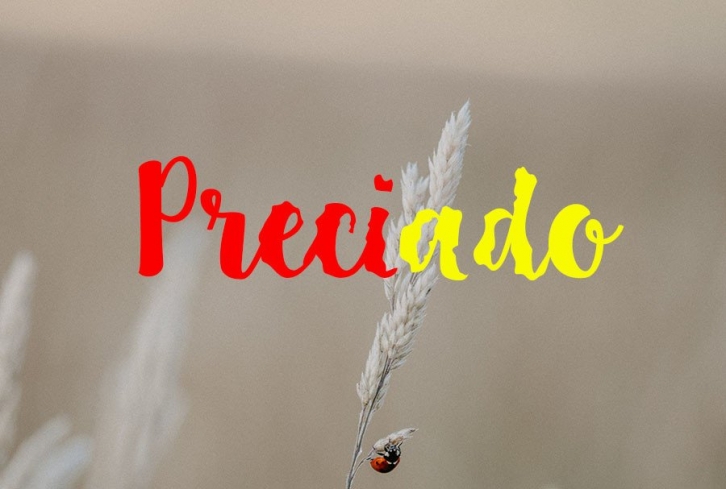
Preciado is a naturally charming and quirky handwritten font that beautifully combines the elegance of handwriting with the boldness of an artist. The characters look unique, crafty, and spectacular!